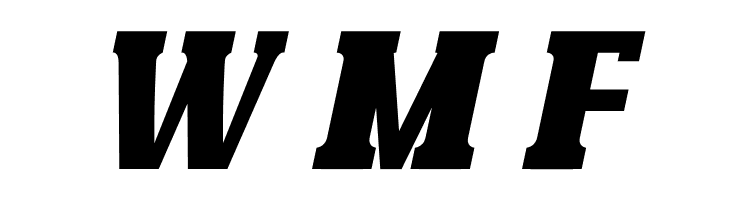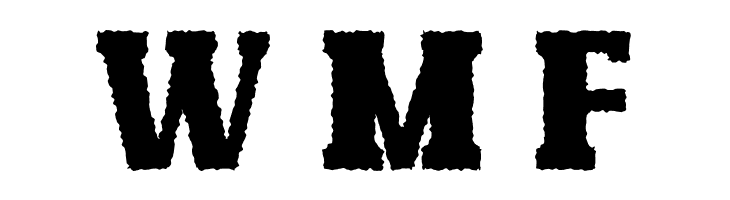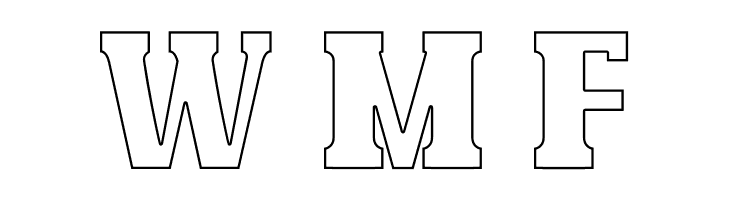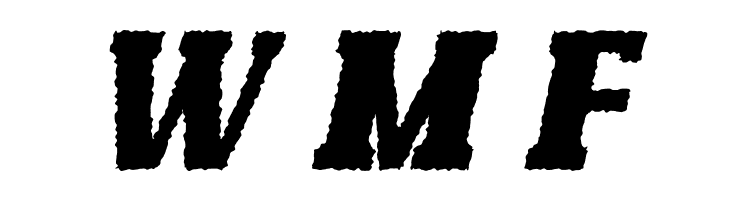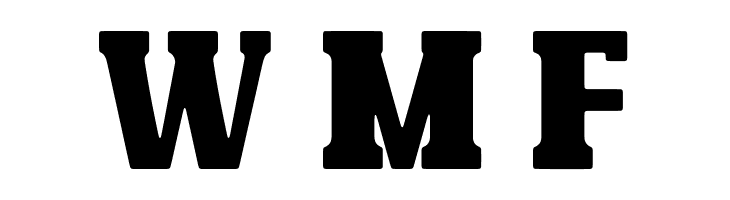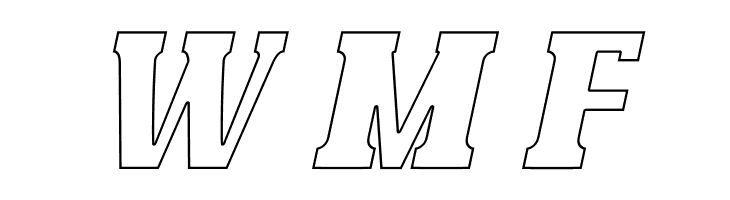
Bonaro Clean Demo Clean Font
A bold, impactful font with a vintage yet modern style, perfect for standout designs.
Bonaro Stamp Demo Stamp Font
A bold, distressed font with a vintage stamp-like appearance.
Bonaro Rounded Demo Rounded Font
A bold, rounded font with a strong, friendly appearance.
Bonaro Outline Italic Demo Outline Italic Font
A bold, outlined, italic font with a modern and dynamic style.
Bonaro Rough Demo Rough Font
A bold, rough-textured font with a vintage, distressed look.
Bonaro Clean Italic Demo Clean Italic Font
A bold, italic serif font with high contrast and angular serifs.
Bonaro Outline Demo Outline Font
A bold, outlined font with a strong, impactful presence.
Bonaro Stamp Italic Demo Stamp Italic Font
A bold, italicized font with a distressed, stamped texture.
Bonaro Rough Italic Demo Rough Italic Font
A bold, rough-textured italic font with a dynamic and handcrafted appearance.
Bonaro Rounded Italic Demo Rounded Italic Font
A bold, rounded, and italic font with smooth curves and a modern look.